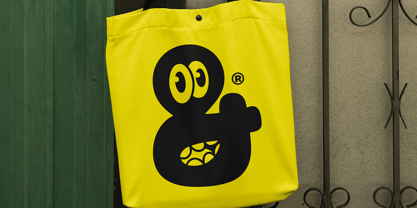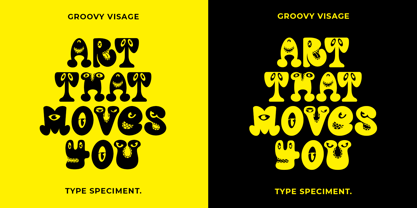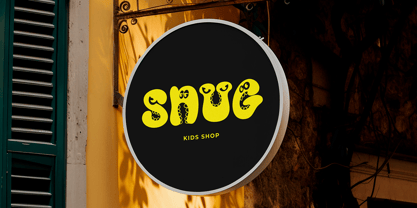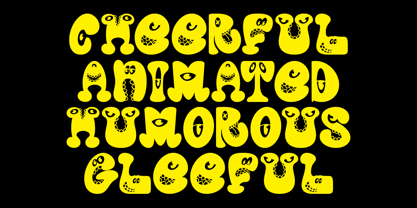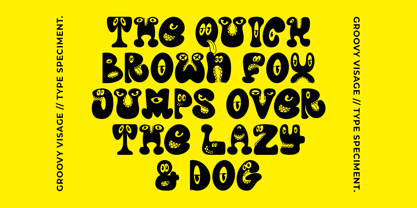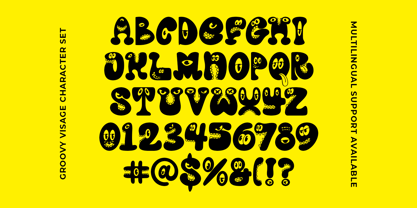
Groovy Visage
by Groovy Font
The Groovy Visage Font Family was designed by Ahmad Ginanjar Riyadi and published by Groovy Font. Groovy Visage contains 1 styles. More about this family
Groovy Visage is a Character Display Font
This font is a playful and cheerful font designed with various monster character expressions. Despite its monster-themed design, this font is not scary.
Instead, it brings joy and happiness. It is suitable for all designs related to children and is perfect for creating a fun and whimsical atmosphere.
Designers: Ahmad Ginanjar Riyadi
Foundry: Groovy Font